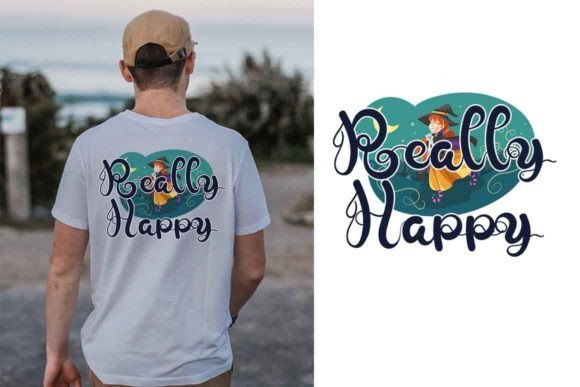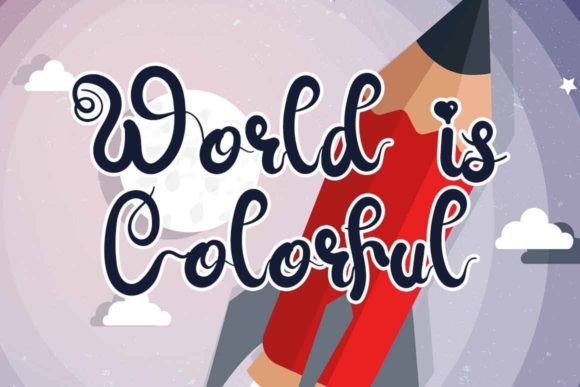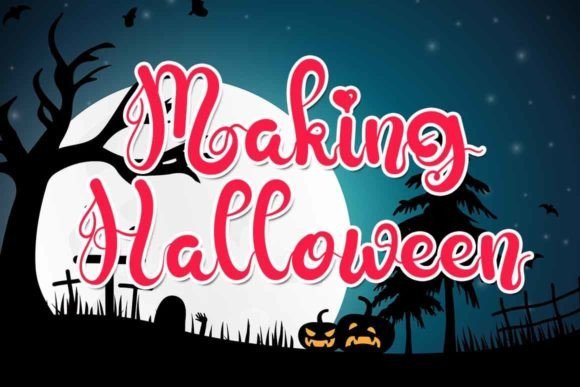
Introduction to Making Halloween Font
Making Halloween is a beautiful and sweet font.
It is fresh, clean, and elegant This font will look amazing in a great number of projects, both formal and informal.
Key Features of Making Halloween Font
Why Choose Making Halloween Font?
Making Halloween Font offers exceptional quality and versatility, making it a valuable addition to your design toolkit. Whether you’re creating for personal projects or commercial use, Making Halloween Font delivers professional results.